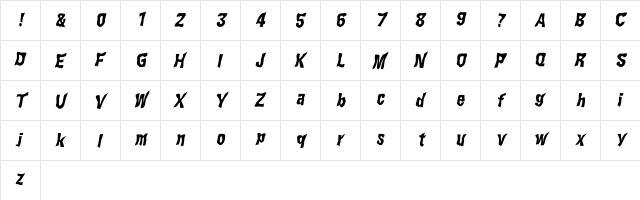
WILD2 Ghixm NC Bold Italic Font Preview
WILD2 Ghixm NC Bold Italic
WILD2 Ghixm NC Bold Italic Font Details
Design Context for WILD2 Ghixm NC Typeface
WILD2 Ghixm NC is a composed and adaptable typeface that performs quietly and consistently across a wide range of design contexts. Its italic angle brings a sense of urgency and motion to the letterforms. Its bold stroke weight gives it real presence on the page.
Pro Tip: Try WILD2 Ghixm NC for annotation and caption copy alongside an upright companion — the contrast in angle creates a dynamic but ordered typographic system.